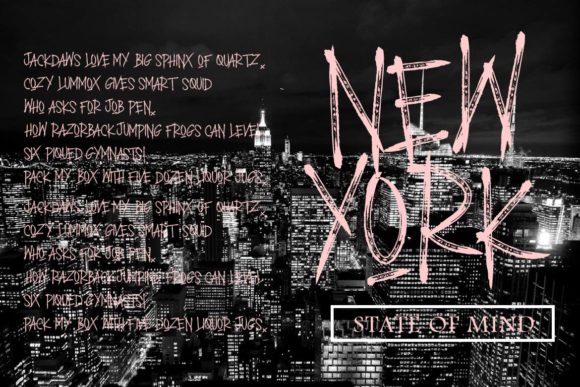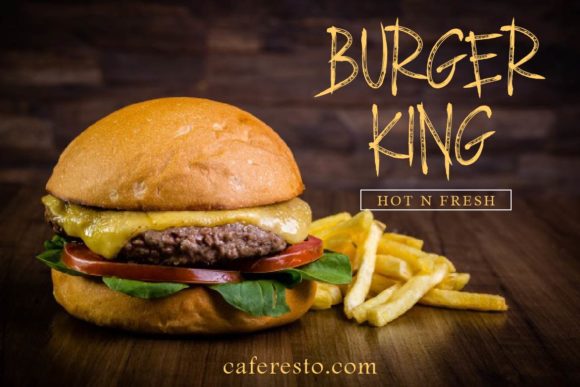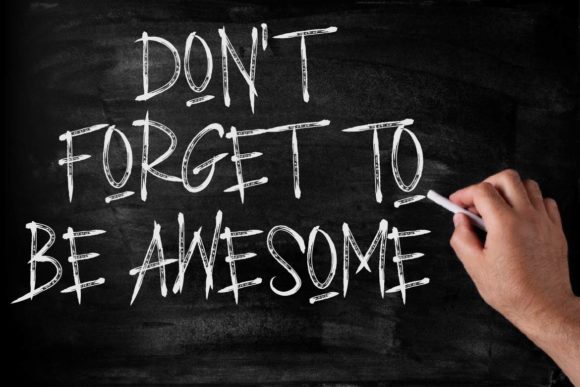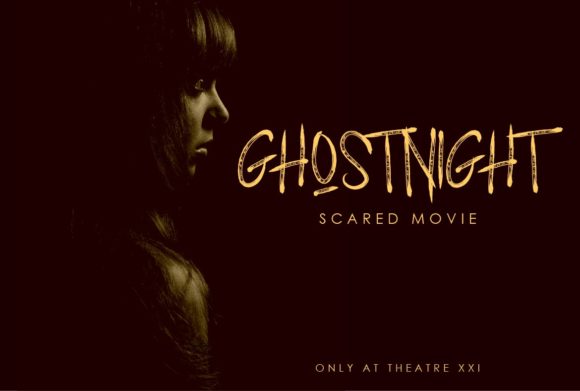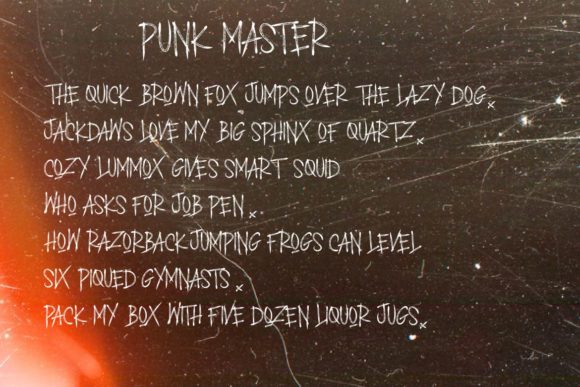
Introduction to Punk Master Font
Do you remember that moment when you finally find the perfect design element to bring your creative project to life? For many designers, it’s like stumbling upon a hidden treasure that makes all the difference. That’s exactly what happens when you add the Punk Master Font to your design arsenal.
As a versatile and high-quality design resource, the Punk Master Font is a game-changer for any creative project. With its simple yet striking lettering, this font is perfect for adding a touch of edginess to your designs. Whether you’re working on a flyer, a logo, or a social media graphic, the Punk Master Font is sure to make your work stand out.
What sets the Punk Master Font apart is its sleek and modern design, which can be easily customized to fit your project’s unique needs. Plus, with a transparent background option available for free download, you can easily integrate this font into your design without worrying about unnecessary background elements.
Punk Master Font Key Features
- Unique Grunge Design: The Punk Master Font features a distressed, grunge-inspired design perfect for creative projects requiring an edgy look.
- Transparent Background: The Punk Master Font comes with a transparent background, allowing designers to easily integrate it into their designs without any distractions.
- Perfect for Alternative Culture: The Punk Master Font is ideal for projects related to alternative culture, music, and fashion, adding a touch of rebelliousness to any design.
Honest Review: Punk Master Font
I recently had the chance to work with the Punk Master Font, and I have to say it’s a solid addition to any design resource library. As a designer, I’m always on the lookout for unique and high-quality fonts that can elevate my creative project.
The Punk Master Font delivers on that promise. With its bold, edgy style, it’s perfect for designs that need a bit of attitude. The font is available for free download, making it a great option for designers on a budget. One of the standout features of the font is its transparent background, which makes it easy to use in a variety of design contexts.
Here are some of the things that work well with the Punk Master Font:
- Unique and bold style that’s perfect for edgy designs
- High-quality font that’s suitable for professional use
- May not be suitable for more conservative or traditional designs
- Limited character set, which may require additional font downloads for more complex designs
Overall, I’m impressed with the Punk Master Font. While it may not be the perfect fit for every design project, it’s a great option for designers who need a bold and edgy font. With a bit of creativity, it can really add some punch to your designs.
Punk Master Font
Tips for Getting the Most Out of Punk Master Font
To get the most out of Punk Master Font, use it on a transparent background to create a striking visual effect. Experiment with different font sizes and styles to add depth and interest to your designs.
Punk Master Font is perfect for:
- Music festival posters and flyers
- Rock band logos and merchandise
- Edgy social media graphics and advertisements